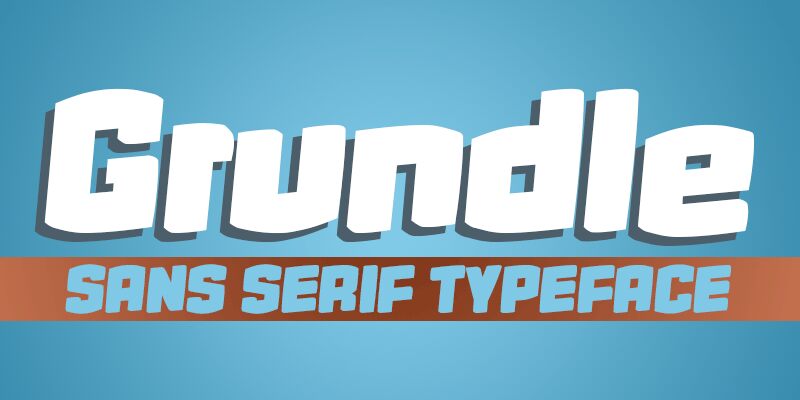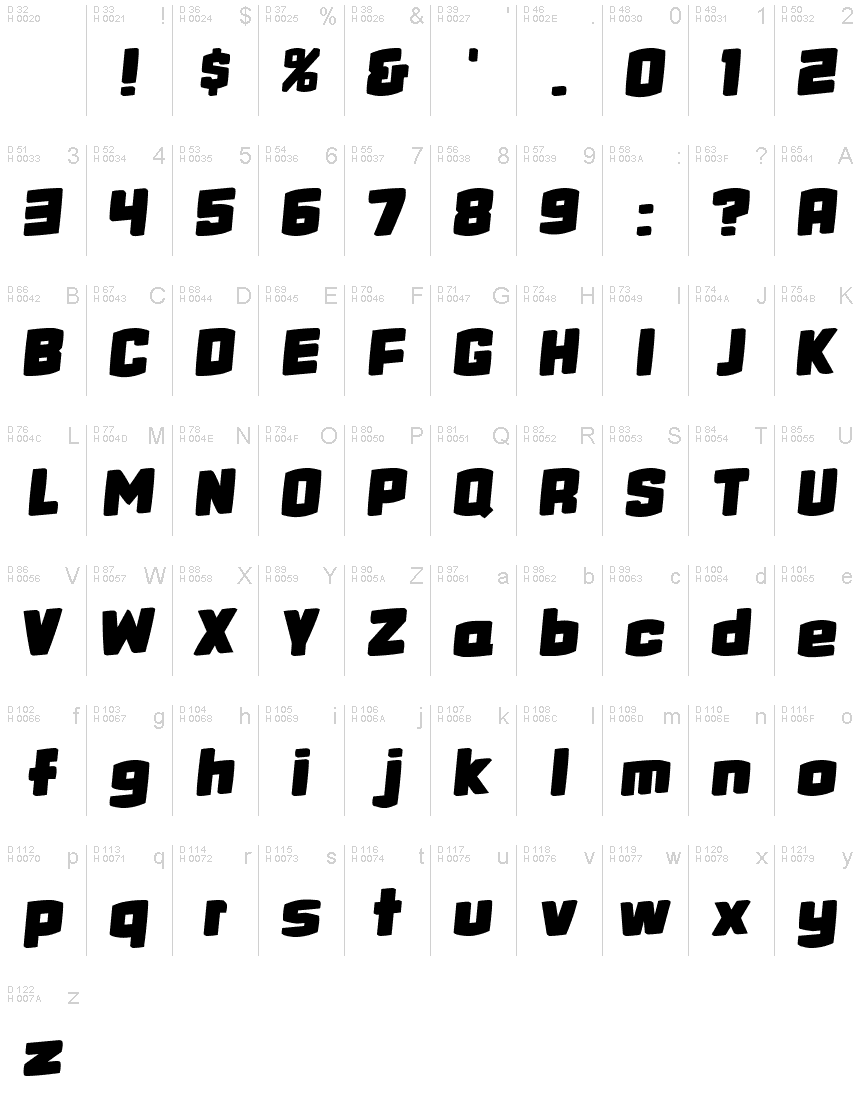
Grundle
Grundle, the brainchild of font designer Matt Williamson, is a sans serif display font that exudes boldness and modernity. With its extra-bold weight and expanded width, Grundle commands attention while maintaining legibility. The unique letterforms of Grundle make it perfect for any project that requires a touch of personality and flair - from eye-catching logos to striking headlines on websites or printed materials. Whether you're designing for fashion, technology, or entertainment industries, Grundle's versatility makes it suitable for any project that demands a strong visual impact. Upgrade your design game with Grundle today!